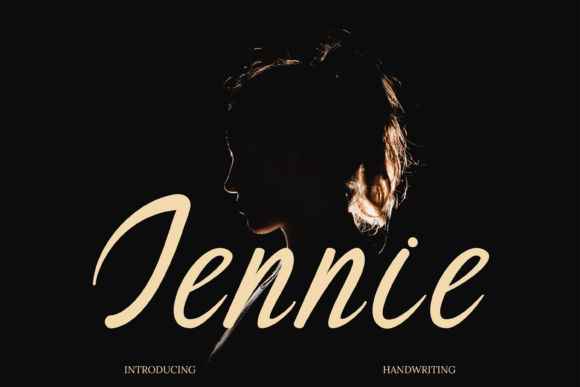
In an era of visual communication, Jennie Font emerges as a radiant script typeface, a stroke of elegance designed to captivate audiences. Crafted by the artisans at inferno.type3, Jennie stands as a visual masterpiece, a symphony of intricate lines and sweeping strokes that dance across the screen.
Transport yourself to a world of charm and sophistication as Jennie Font graces your digital designs. Its modern handwritten style exudes a timeless appeal, reminiscent of handwritten letters, personal notes, and heartfelt messages. Whether you're a graphic designer seeking to add a personal touch to your creations or a social media enthusiast looking to make a statement, Jennie Font is your perfect companion.
Unleash your creativity and let Jennie Font elevate your visual storytelling. Its versatility knows no bounds, seamlessly adapting to a myriad of design applications. From the warmth of greeting cards to the allure of magazines, from the boldness of branding to the dynamic realm of social media, Jennie Font effortlessly enhances your message, leaving a lasting impression on your audience.
Embark on a creative journey with Jennie Font as your trusted guide. Let its elegant curves and graceful flourishes add a touch of finesse to your print designs, packaging concepts, and countless other creations. Experience the power of a font that not only communicates words but also conveys emotions, leaving a lasting impact on your audience.